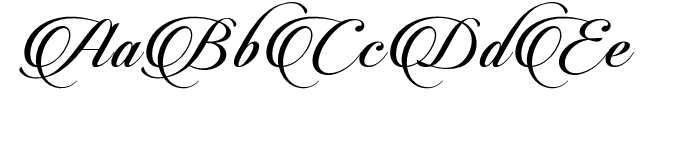
Free and Premium Quality Fonts - Best Premium FontsSuch as in creating a unique logo brochure layout wedding invitation card. Body text of this font is designed with high details precisely smooth and flow for you so that you can use this font for logotype custom typeface greeting cards tittle labels wedding designs header magazines book cover or any kind of advertisements purpose. Looking for candle fonts.
Candle script fonts free download. Every font is free to download. A font with brief strains at the top and backside of the letter are serif fonts. Download free font candlescript by vast from category calligraphy. The body text of candlescript font has been designed with high details precisely smooth and flow so it is suitable used as a logotype custom typeface tittle header or any kind of advertisements purpose.
Candlescript font free download demo version. Onlinewebfontscom is internet most popular font online download websiteoffers more than 8000000 desktop and web font products for you to preview and download. This font has script and italic styles. Candlescript font family free download script leave a comment candlescript font is an amazing font that becomes designed with the aid of vast and.
Candlescript font have a script and italic style. Alongside the sexist layout you can apply this font for immense planning purposes. The best website for free high quality candle script fonts with 39 free candle script fonts for immediate download and 4 professional candle script fonts for the best price on the web. Candle script free download.
Download free font candlescript by vast from category calligraphy. The body text of candlescript font has been designed. Font meme is a fonts typography resource. Founder vast logotype independent type foundry from indonesia and first published in august 2014.
As well as business card designs fashion magazines printing on fabrics and much more. Candlescript font have a script and italic style. Candle light script is one of the maximum popular internet fonts on google fonts. Posted for the primary time via the creative market.